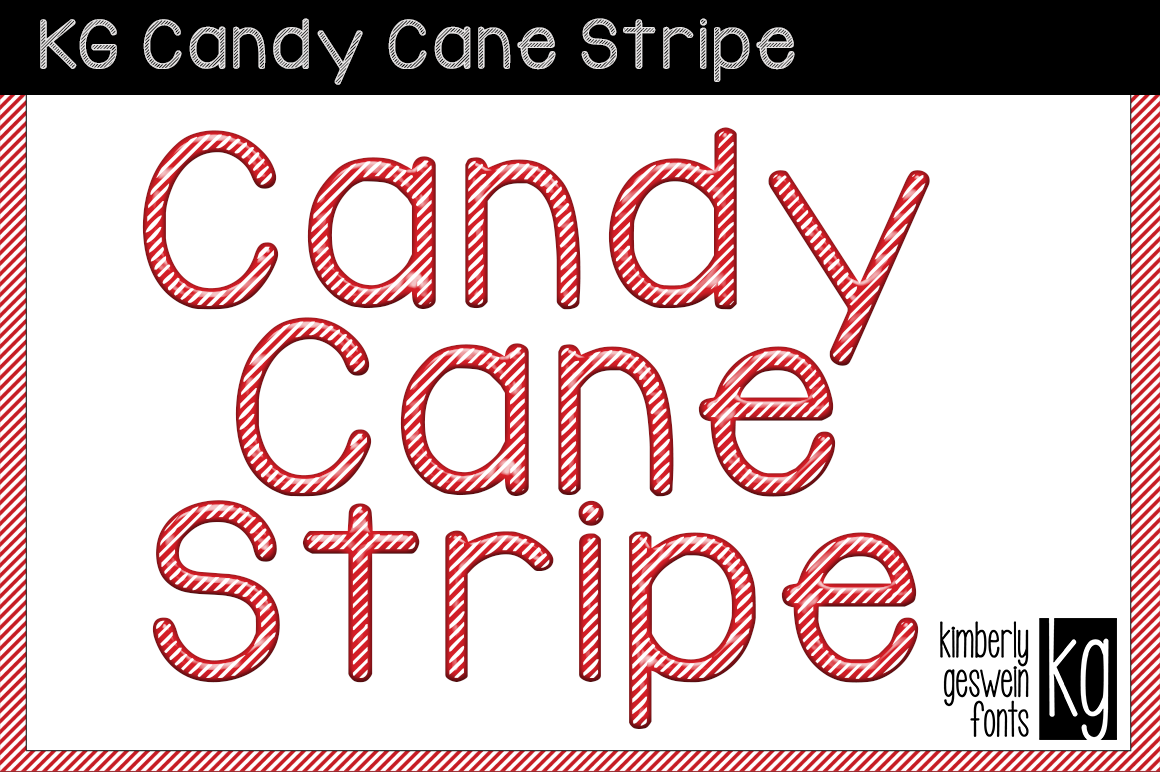
KG Candy Cane Stripe Font
A happy candy cane striped font. Don't get stuck in a holiday only mode with this one- it is versatile enough for many uses.